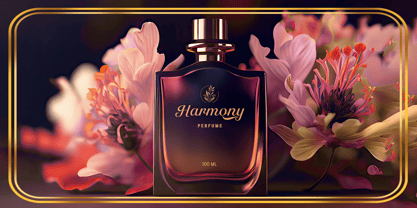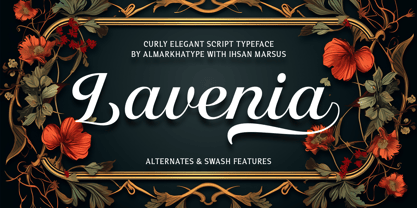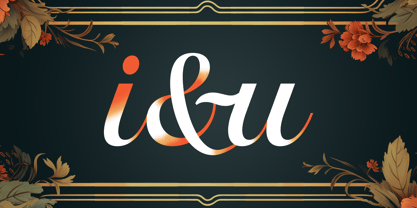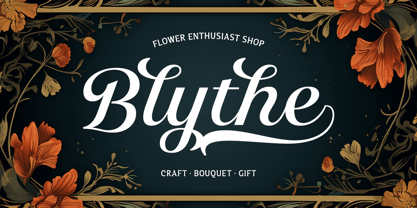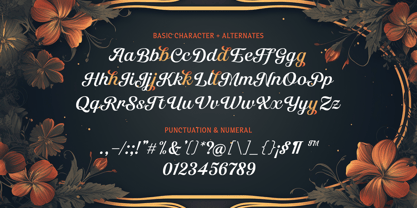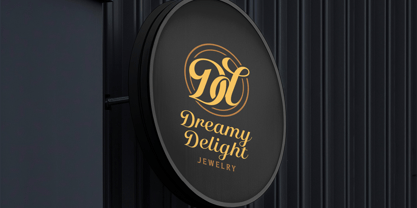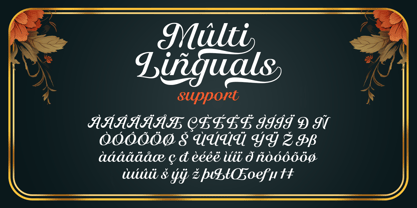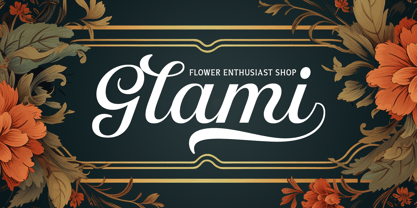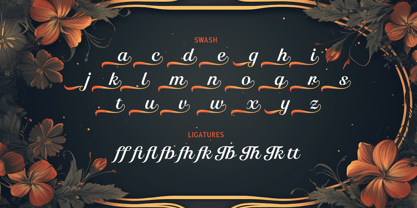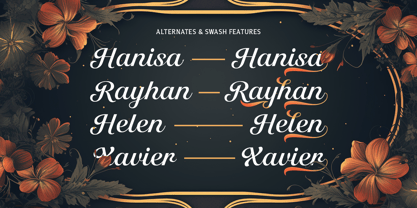
Lavenia
por Almarkha Type
La familia tipográfica Lavenia fue diseñada por Abdul Malik Wisnu y publicada por Almarkha Type. Lavenia contiene 1 estilos. Más información sobre esta familia
Lavenia is an elegantly crafted typeface that combines classic calligraphy with modern refinement. This beautiful script font offers fluidity and grace in every stroke, making it ideal for a variety of design applications. Its delicate curves and flowing lines exude sophistication. Lavenia includes a range of OpenType features such as ligatures, alternates, and swashes, allowing for creative customization and enhancing its aesthetic appeal. Designed for global use, Lavenia offers extensive language support, ensuring seamless communication across different languages. Perfect for wedding invitations, branding and logo design, greeting cards, social media graphics, and packaging design, Lavenia adds a touch of elegance and charm to any project. Inspired by timeless calligraphy, Lavenia blends classic elegance with modern design principles, making it the ideal choice for those looking to infuse sophistication into your work.